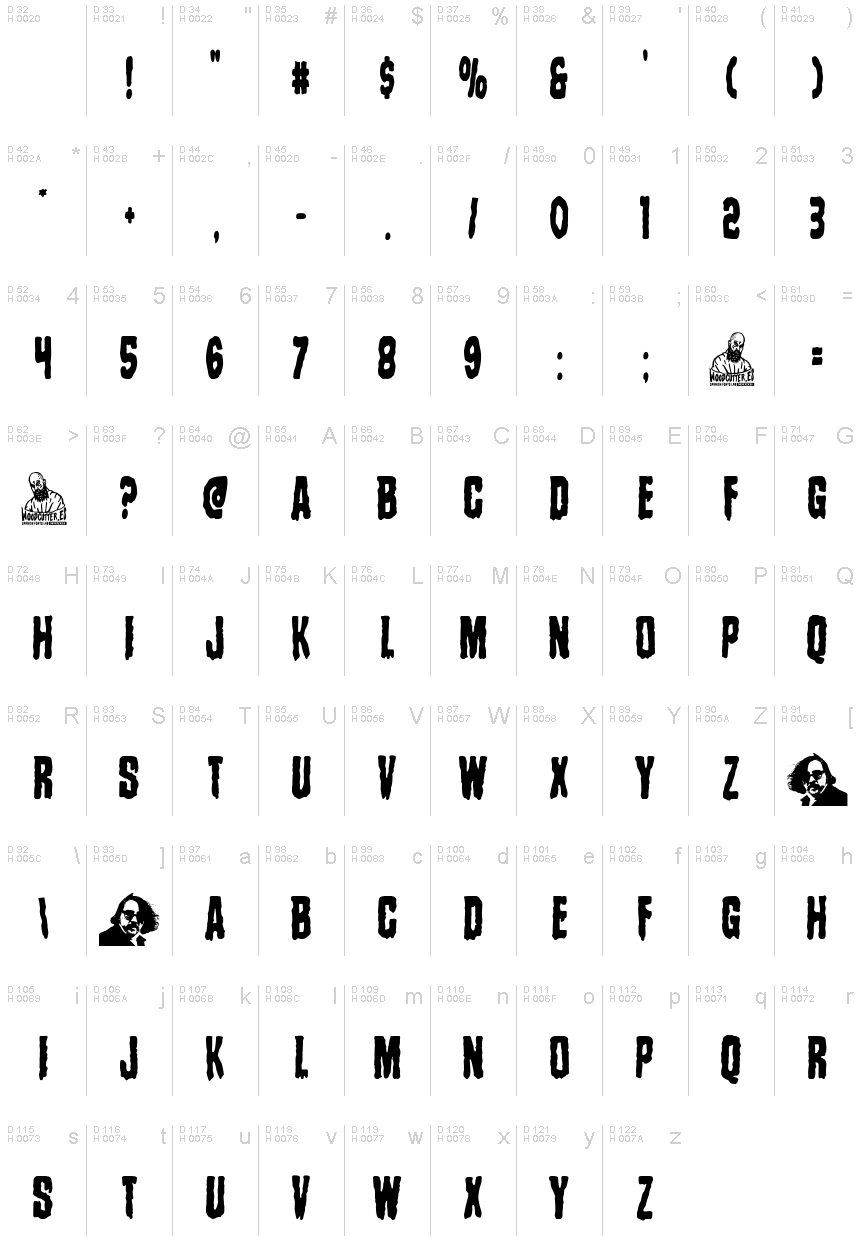
Jesus Franco
Dive into the eerie and captivating world of Jesus Franco, a display font crafted by the innovative Woodcutter. With its scary and distorted style, this condensed font stands out for its unique ability to inject a haunting atmosphere into any project. Jesus Franco is not just a typeface; it's an experience that transports your creative work into realms of mystery and suspense. Its condensed width makes it strikingly effective for titles, posters, book covers, and any artistic endeavor seeking to leave a memorable impression.
Perfectly suited for horror-themed projects, dark fantasy narratives, or edgy branding campaigns, Jesus Franco offers designers an unparalleled tool to evoke emotion and intrigue. Whether you're looking to create chilling movie titles or captivating graphic novels that require an air of mystery, this font's distinctive characteristics ensure your work will not go unnoticed. Embrace the power of Jesus Franco in your next project and let your creativity flourish in the shadows.
Jess Franco.